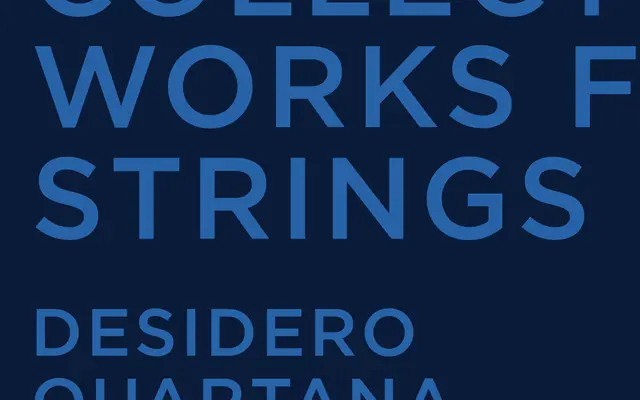
Gotham
Hoefler & Co · Tobias Frere-Jones, Jesse Ragan · 2000
Gotham specimen from Hoefler & Co
Tobias Frere-Jones's geometric sans for GQ, drawn from mid-twentieth-century New York signage, now a multi-width system that has become one of the most widely used identity sans serifs of the past two decades.
A geometric sans serif by Tobias Frere-Jones with Jesse Ragan, originally commissioned by GQ in 2000 and built out into a full multi-width system over the following decade. Gotham takes its proportions and details from mid-twentieth-century New York vernacular lettering, especially the cast-aluminium signs of the Port Authority Bus Terminal, and softens the formal geometry of European geometric sans serifs into something distinctly American. Standard, Narrow, Extra Narrow and Condensed widths, eight weights with italics across each, plus Screensmart and Office cuts. Famously carried Barack Obama's 2008 campaign identity and the cornerstone inscription of One World Trade Center, and has spent the last two decades on more brands and books than almost any other contemporary sans.
H&Co classify Gotham as a geometric sans serif rooted in the vernacular lettering of mid-twentieth-century New York, particularly the architectural signage of the Port Authority Bus Terminal. Originally commissioned by GQ magazine and now a full system of widths.